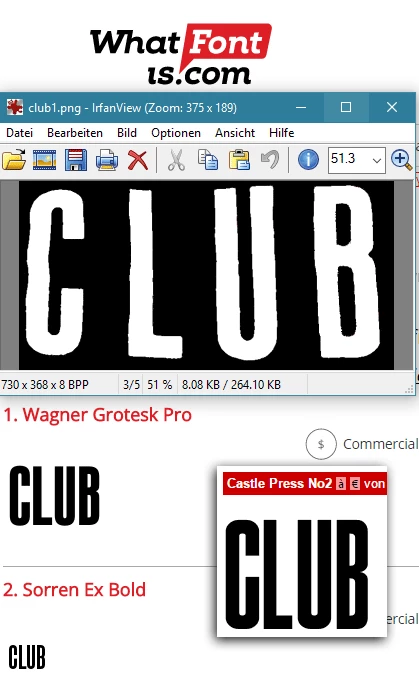
affective way to figure out fonts within an image is tough...
Hey all.  If or when ever tasked with figuring out what fonts are being used in an image, how do you go about the task?  I have a perfect example.  Say you wanted to figure out what fonts are used on an old t shirt!  It looks to me that there are a max of 5 fonts.  Maybe 3 and some are just scrunched versions... I've tried running it through 3 different 'upload your image and scan for fonts' web apps but they were close to useless.  Any help or a point in the right direction would be great!
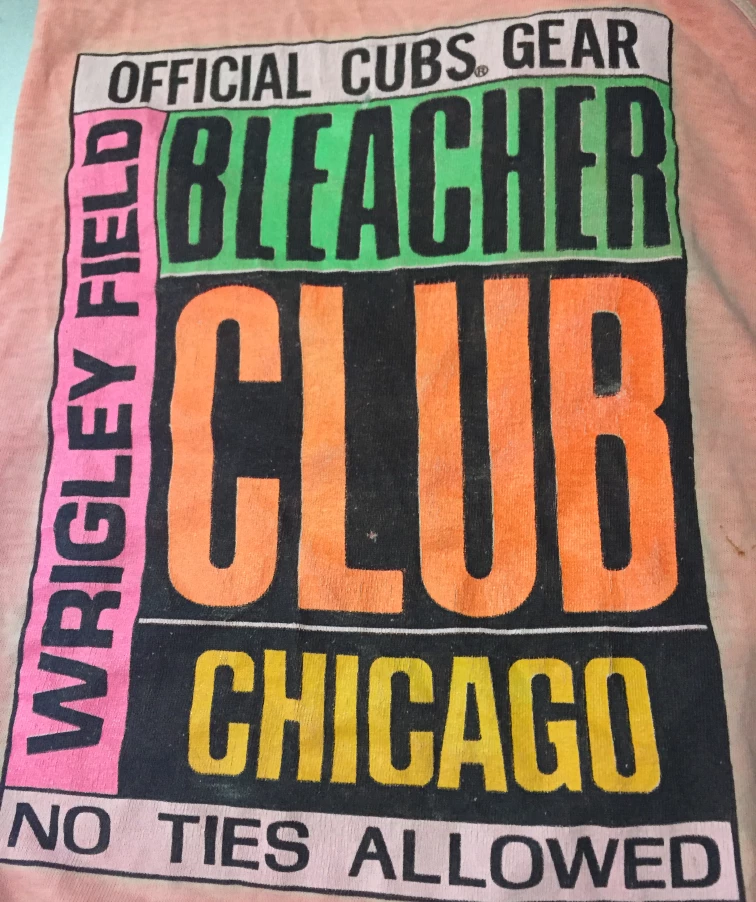
When searching a font, concentrate on special proprerties of one or two characters.
In the CLUB example it is the C, it is bent like a staple but with a relatively wide space between the "legs". Or the B: it's upper part is much shorter then the lower part and on the right side it is not rounded. All letters are very condensed.
This way you nearly always will at least find a similar font as a starting picture for the upload sites. But - I have to admit - success is not guaranteed. There are way too much fonts out there.